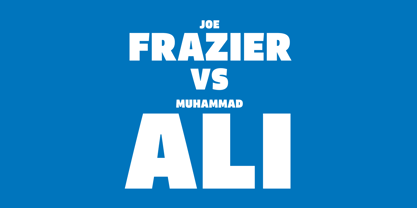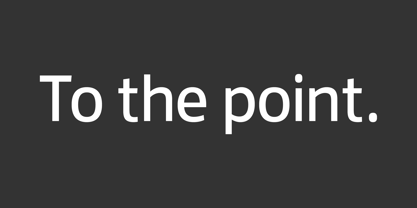
FS Jack
FS Jack®
by Fontsmith
FS Jack Font Family was designed by Jason Smith, Fernando Mello and published by Fontsmith. FS Jack contains 9 styles family package options.
a, g, k and y
It was a forensic examination by Jason Smith of his existing designs that laid the groundwork for FS Jack. Jason made a list of unique characteristics that would give the sans serif font its typographic thumbprint, which included an unusually large x-height and slightly off-the-wall letters like the lower-case “a”, “g”, “k” and “y”.
“I wanted to make something that was slightly uncomfortable,” says Jason, “and in doing so simplify the quirkiness down to a few letters.” Fernando Mello did “the rest of the cooking”, filling the design out and making the additional weights.
Tipos Latinos
Upon its release in 2010, FS Jack was submitted by Fernando, who is Brazilian, for the esteemed type design biennial, Tipos Latinos, where it was selected as a winner in the Families category. It went on to be selected for type exhibitions throughout Latin America and around the world.
“FS Jack is a workhorse,” says Fernando, “but also very ownable and distinctive, and available in a good range of weights, crafted by Jason and I.”
Corporate
“FS Jack took a couple of years to get noticed and is still fairly underused,” says Jason, “which is good in a way, for our Brandfont clients that have adopted it.”
FS Jack was chosen as the signature font for The Shard in London, from its signage down to business cards. Fontsmith also worked with Lloyds Bank to customise FS Jack into a bespoke font for the bank’s updated brand identity – part of Fontsmith’s Brandfont service, which you can read about here.
Fat Jack
Included in the FS Jack family – just – is FS Jack Poster, the super-heavy weight of the range. “That was a last minute addition,” says Fernando, “after Jason and I started talking about how much we liked Gill KO, a typeface that is almost comically fat.”